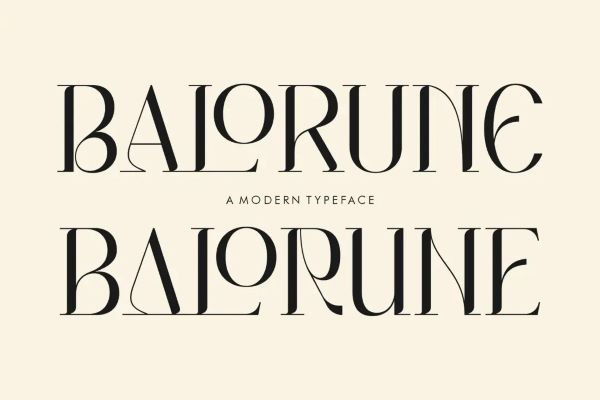
Balorune Font
Balorune Font is a Luxury Font by Storytype Studio that combines formal elegance with a neat, modern character that draws immediate interest and holds it through sheer typographic quality. Its prestigious ligature serif construction and clean lines make it the kind of typeface that artist clients, restaurant owners, and high-end brand managers reach for without hesitation.